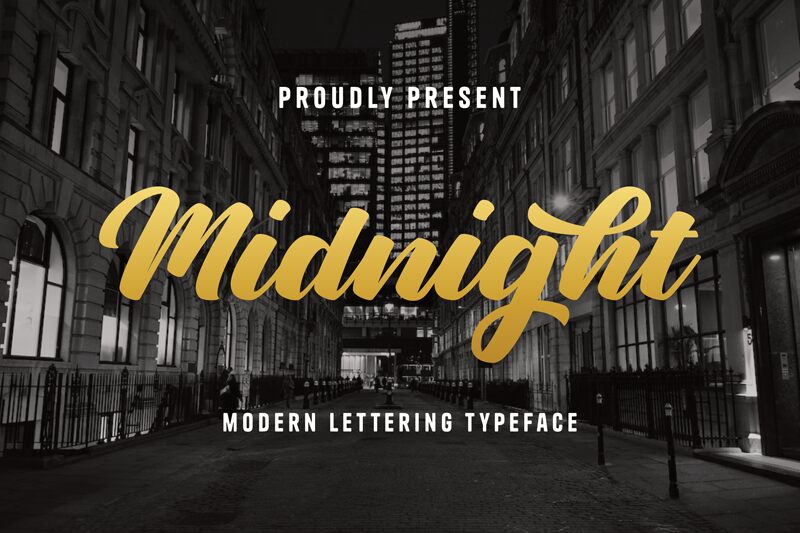
Midnight, designed by Letterflow Studio, is a brush font that exudes a sense of fluidity and spontaneity reminiscent of an artist's swift strokes at the stroke of twelve. It captivates with its elegant sweeps and curves, which convey motion and emotion with a personal touch. The letters dance between boldness and grace, creating an aesthetic that is both impactful and delicately expressive.
This font finds its place where design seeks to marry the casual charm of hand-painted signage with the sophistication of modern branding. Perfect for projects that require a touch of human warmth such as book covers, greeting cards, or advertising campaigns, Midnight brings an authentic brush feel that resonates with those looking to strike a balance between artistry and approachability in their visual narratives.